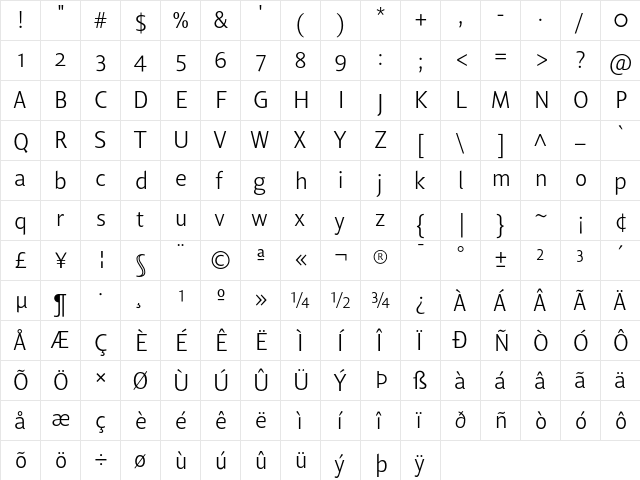
Lisboa Sans OSF Light Regular
Design Context for Lisboa Sans OSF Light Typeface
Lisboa Sans OSF Light offers clean, dependable letterforms without strong stylistic allegiance, making it a practical choice for designers who need flexibility. Its slender proportions lend an understated elegance to any composition.